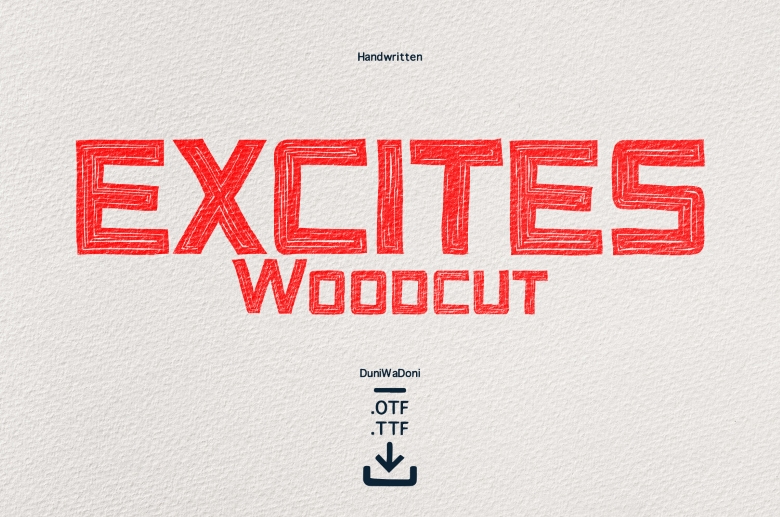
Excites Woodcut Font
Excites Woodcut is a display font for custom text that come kinda carved out of wood. The letters possess wooden pattern that will suit nicely into the designs that require a natural appeal. It is a very distinct font and rather daring and perfect for projects that are to resemble wood or nature in some way.
Excites Woodcut Display Font